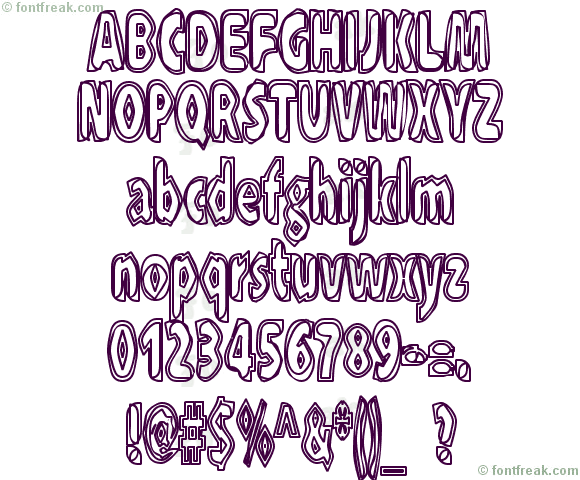
XXRaytid
About XXRaytid
The XXRaytid font by Omega Font Labs is a captivating display typeface that seamlessly blends creativity with functionality. Released in 1998 as freeware, this unique font exhibits a playful yet bold aesthetic, making it an excellent choice for various design projects. Its distinctive letterforms feature a varied stroke weight that adds dynamism to the text, while the overall spacing ensures clarity and legibility. The font's decorative elements bring a whimsical charm, making it particularly suitable for eye-catching headings and titles.
The XXRaytid font shines in specific applications, including vibrant wedding invitations, where its unique style can set a celebratory tone. It is also perfect for movie posters, allowing designers to capture attention and convey themes through its striking appearance. Restaurant menus can benefit from its playful design, enhancing the dining experience and creating an inviting atmosphere. Additionally, this font is an excellent choice for social media graphics, adding flair to posts and stories that aim to engage audiences. Graphic designers, small business owners, and content creators will find XXRaytid to be a versatile tool in their typography arsenal.
What sets the XXRaytid font apart is its ability to combine fun with functionality. Its originality and character make it memorable, ensuring that any project utilizing this font will stand out. Whether you’re looking to inject personality into your designs or create a lasting impression, the XXRaytid font free download offers a fantastic opportunity to elevate your work. With its unique visual appeal and versatility, this font is a must-have for anyone looking to make a statement in their creative endeavors.